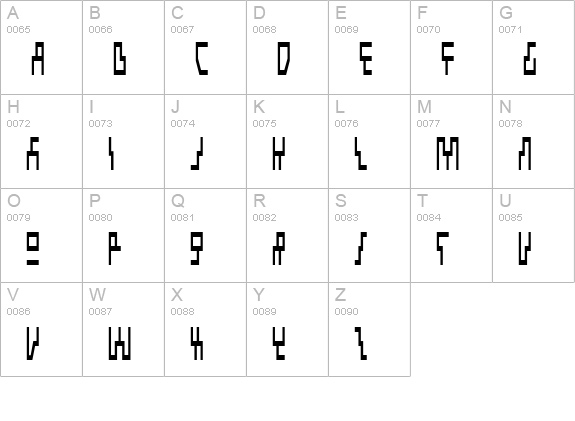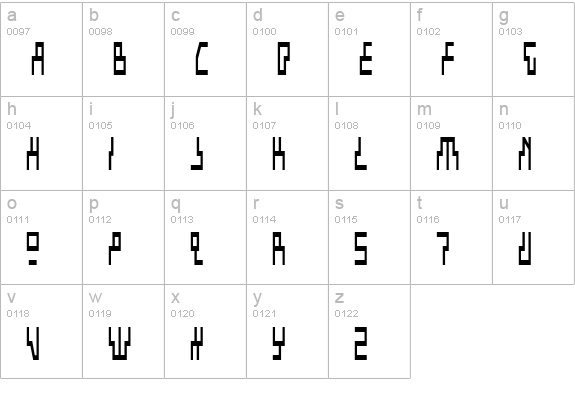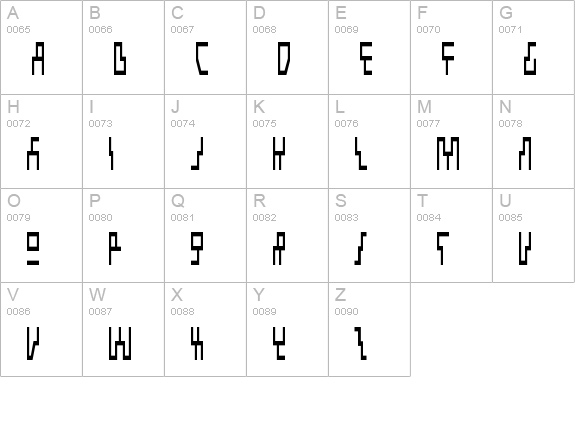
Beam Rider Condensed is a distinctive, condensed-width variant in the Beam typeface family \xE2\x80\x94 well suited to design and typography projects.
Introducing Beam Rider Condensed - a sleek and modern typeface designed for those seeking a futuristic and dynamic look in their projects. With its condensed letterforms and futuristic aesthetic, Beam Rider Condensed is perfect for creating eye-catching headlines, posters, and branding materials. This versatile font exudes a sense of energy and innovation, making it ideal for projects that require a contemporary touch. The best part? Beam Rider Condensed is available for free download at FontsMarket.com. Whether you're a designer looking to add a cutting-edge edge to your work or a creative individual in need of a font that stands out, Beam Rider Condensed is the perfect choice. Download it today and elevate your designs with this striking typeface.